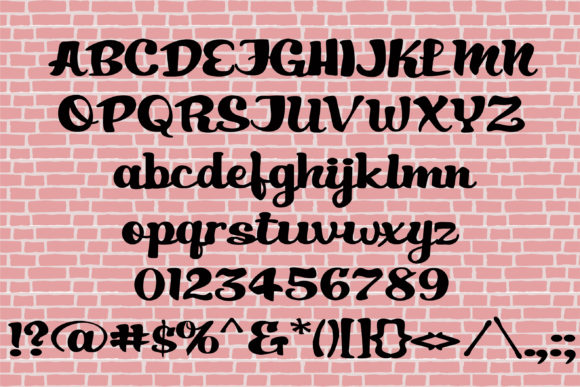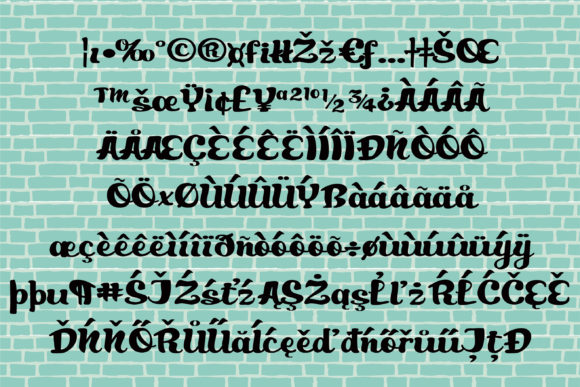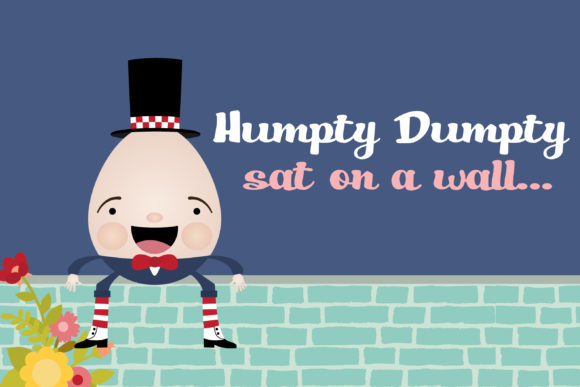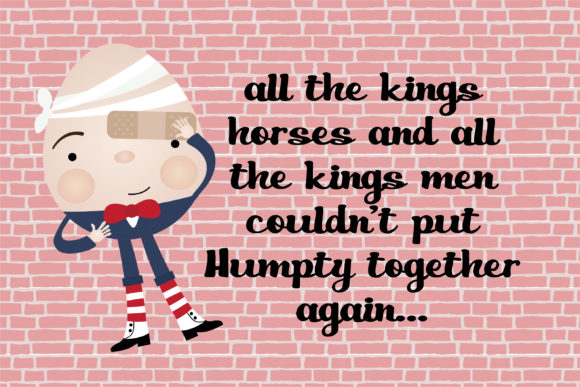
The Perfect Script for a Lasting First Impression
Have you ever been brainstorming a new project, and suddenly a spark of creativity hits you? Maybe it’s a bold headline, a striking logo, or a dramatic title sequence. Whatever it is, it’s that moment when everything comes together, and you know you’ve got something special. For designers, this moment is often the result of choosing the right font, and today we’re going to talk about one that can make a real impact: the Abaganoush Font.
This hand-crafted script is a bold and heavy cursive that’s perfect for titles, displays, posters, and more. Its unique character and style make it a valuable addition to any designer’s toolkit. Whether you’re working on a marketing campaign, a film project, or a personal art piece, the Abaganoush Font can help you make a lasting first impression.
Abaganoush Font Key Features
- Font Family: Abaganoush is a unique and elegant font family designed to cater to a wide range of applications.
- Unique Characteristics: Abaganoush Font features a distinctive, hand-drawn style with intricate details and ornaments, making it perfect for adding a touch of elegance to any design.
Abaganoush Font Review
Overall, I was quite impressed with the Abaganoush Font. Here are some of the things that worked well for me: ✨
- Unique Design: The Abaganoush Font has a distinctive, exotic feel that sets it apart from more traditional fonts.
- Legibility: Despite its unique design, the font remains highly legible, making it suitable for a wide range of applications.
- Flexibility: Abaganoush can be used for both body text and headlines, giving designers a lot of flexibility in their designs.
- Character Limitations: The font’s unique design can make it difficult to use in situations where a lot of punctuation or special characters are required.
- Lack of Italic and Bold Variations: While the font comes in a few different weights, there is no italic or bold version available.
Overall, I would recommend the Abaganoush Font to designers looking for a unique, exotic feel in their designs. While it has some limitations, its unique design and flexibility make it a great choice for the right project.
Getting the Most Out of Abaganoush Font
To get the most out of Abaganoush font, use it for titles and headings to add a unique touch to your designs. This font is ideal for creative and artistic projects, such as branding, packaging, and advertising.
Abaganoush font is commonly used for:
- Packaging design
- Artistic and creative projects
No, the Abaganoush Font family is a serif font family, designed to provide a classic and elegant look. It is not available in a sans-serif format, but its unique serif design makes it suitable for a wide range of design applications.